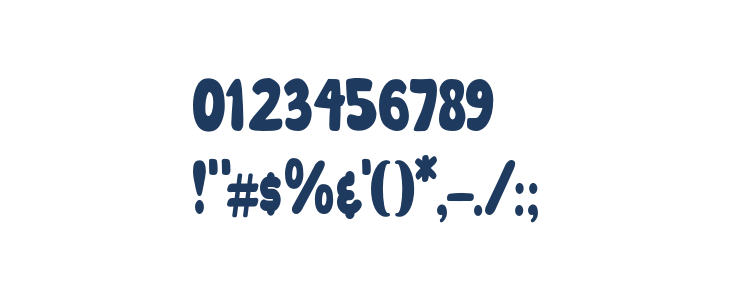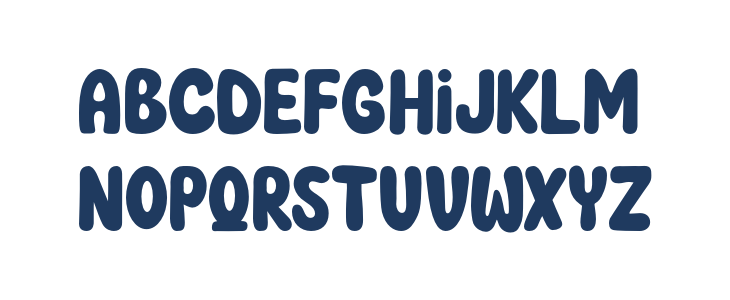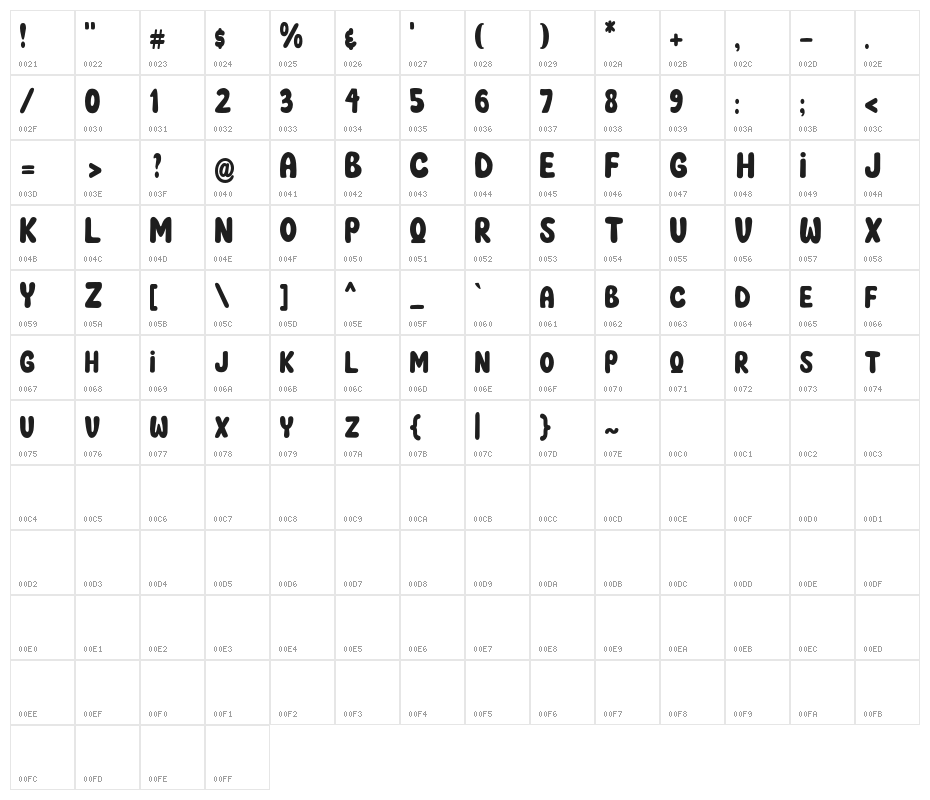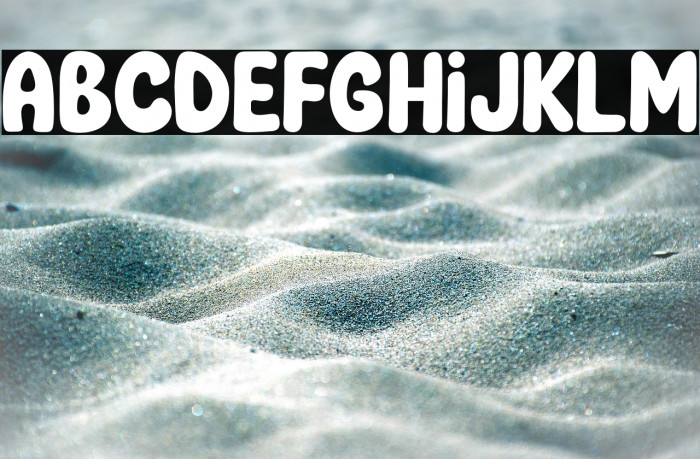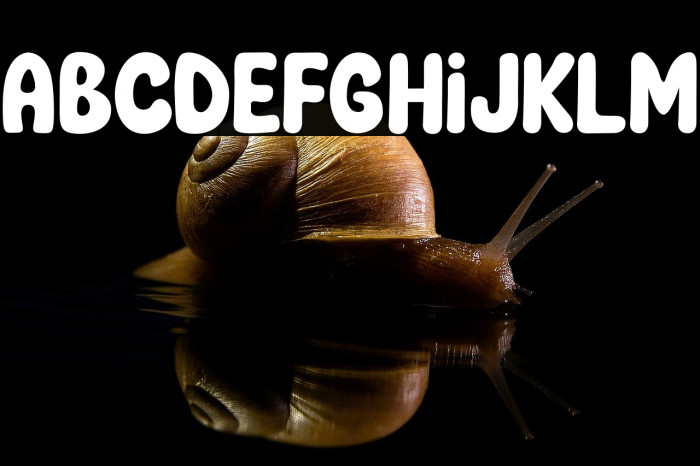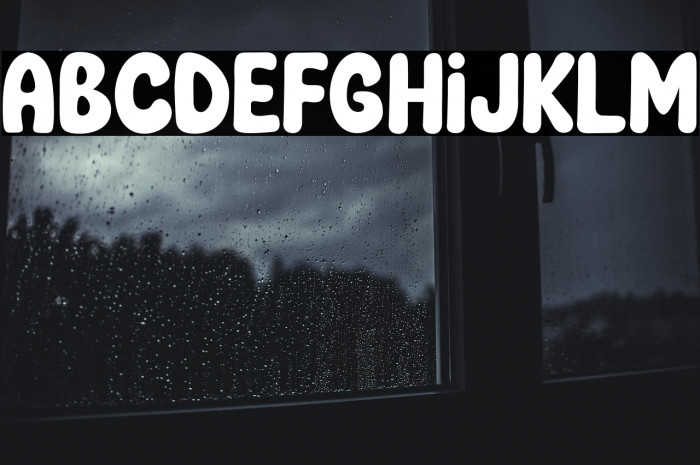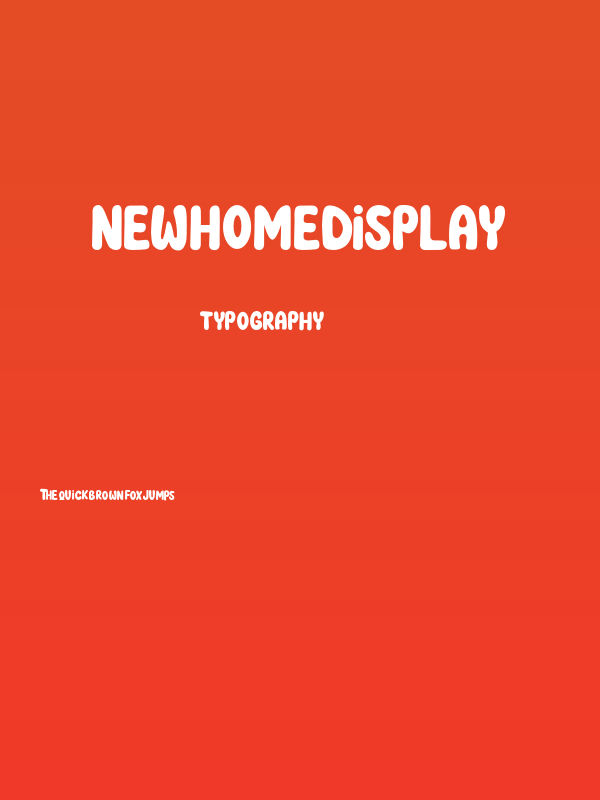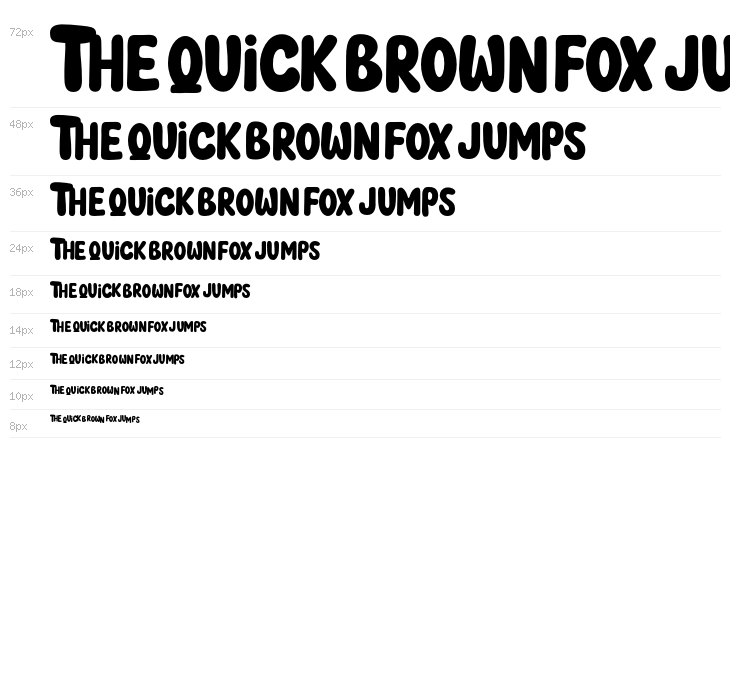
NewHomeDisplay Font
NewHomeDisplay Description
A playful, rounded sans-serif font with bold, thick strokes and soft edges, creating a friendly and approachable appearance. The characters are evenly spaced, with a consistent width and high legibility, suitable for informal and eye-catching designs.
Overall StylePlayful, Modern, Decorative
Use CaseHeadlines, Logos, Posters, Packaging
Proposed ProjectsChildren's books, posters, packaging, branding for playful or casual products, event invitations.